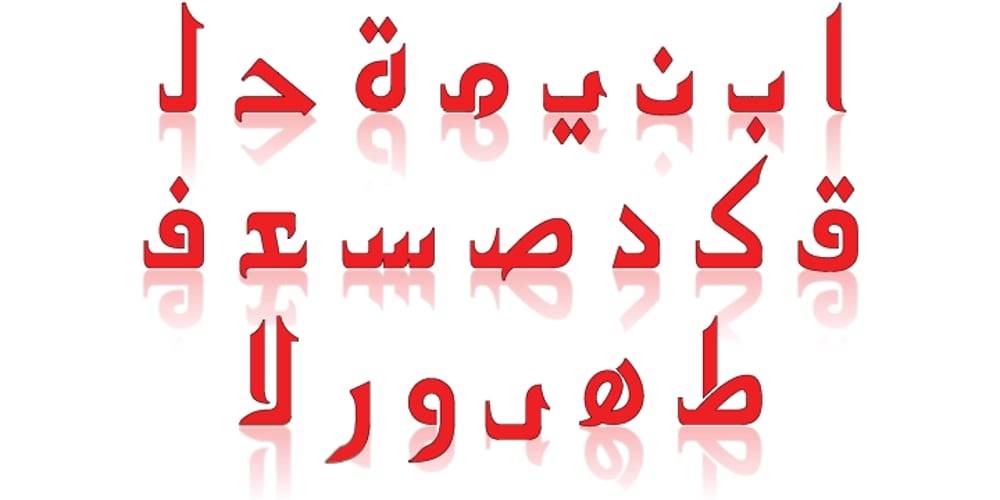
Arabetic Serif Font Family was designed by Saad D. Abulhab and published by Arabetics. Arabetic Serif contains 4 styles and family package options. The Arabetic Serif type family follows the guidelines of the Mutamathil type style but also illustrates the effects of adding and removing Latin-like serifs on Arabetic scripts legibility. It has only one glyph for every basic Arabic Unicode character or letter as defined in Unicode Standards version 5.1. Arabetic Serif employs variable x-height values. It includes all required Lam-Alif ligatures and uses ligature substitutions and selected marks positioning but it does not use any other glyph substitutions or forming. Text strings composed using types of this family are non-cursive with stand-alone isolated glyphs. Tatweel (or Kashida) glyph is a zero width space. Keying it before any glyph will display that glyph isolated form. Keying it before Alif Lam Lam Ha will display the Allah ligature. Arabetic Serif family includes both Arabic and Arabic-Indic numerals; all required diacritic marks, Allah ligature, in addition to all standard English keyboard punctuations and major currency symbols. Fonts are available in regular, italic, bold, and bold italic styles.